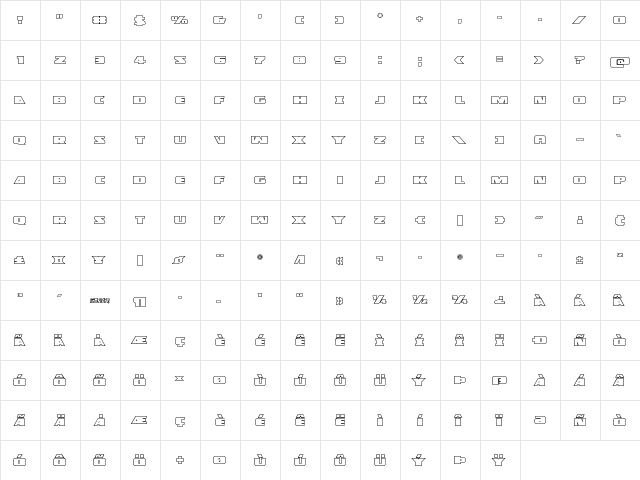
Police Cruiser Outline Regular
Design Context for Police Cruiser Outline Typeface
Police Cruiser Outline is built around its visual character rather than neutral utility — its distinctive forms are designed to make an impression at display sizes.
Font Pairing: Pair with a clean neutral sans-serif for body copy to let Police Cruiser Outline's character lead without overwhelming the composition.
Pro Tip: Use Police Cruiser Outline exclusively at display sizes — it was designed to be seen, not read at length. Let a neutral companion handle body copy.